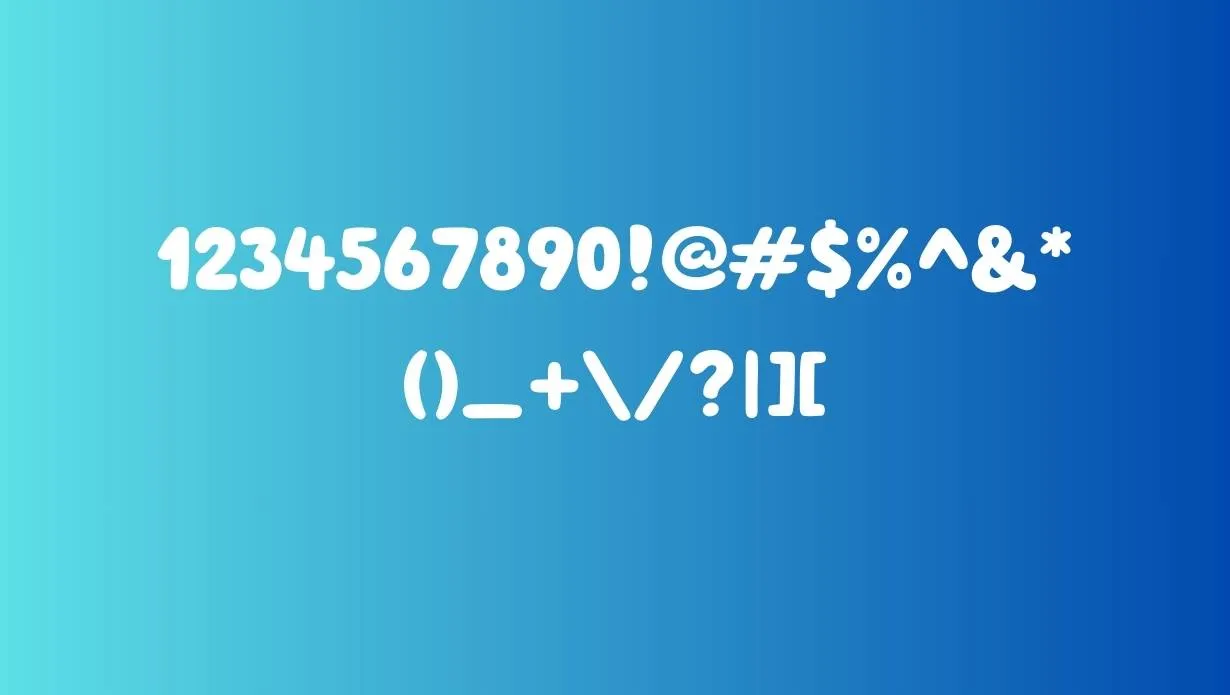
Bluey Font texture is a Display font created by Veneta Rangleova. This typeface is based on the lettering style of a famous TV show “Bluey”. It comes with uppercase and lowercase only, it is available in TTF and OTF formats.
It has a stunning pairing ability, you can pair it with bubble bobble font and attractive fallouts.